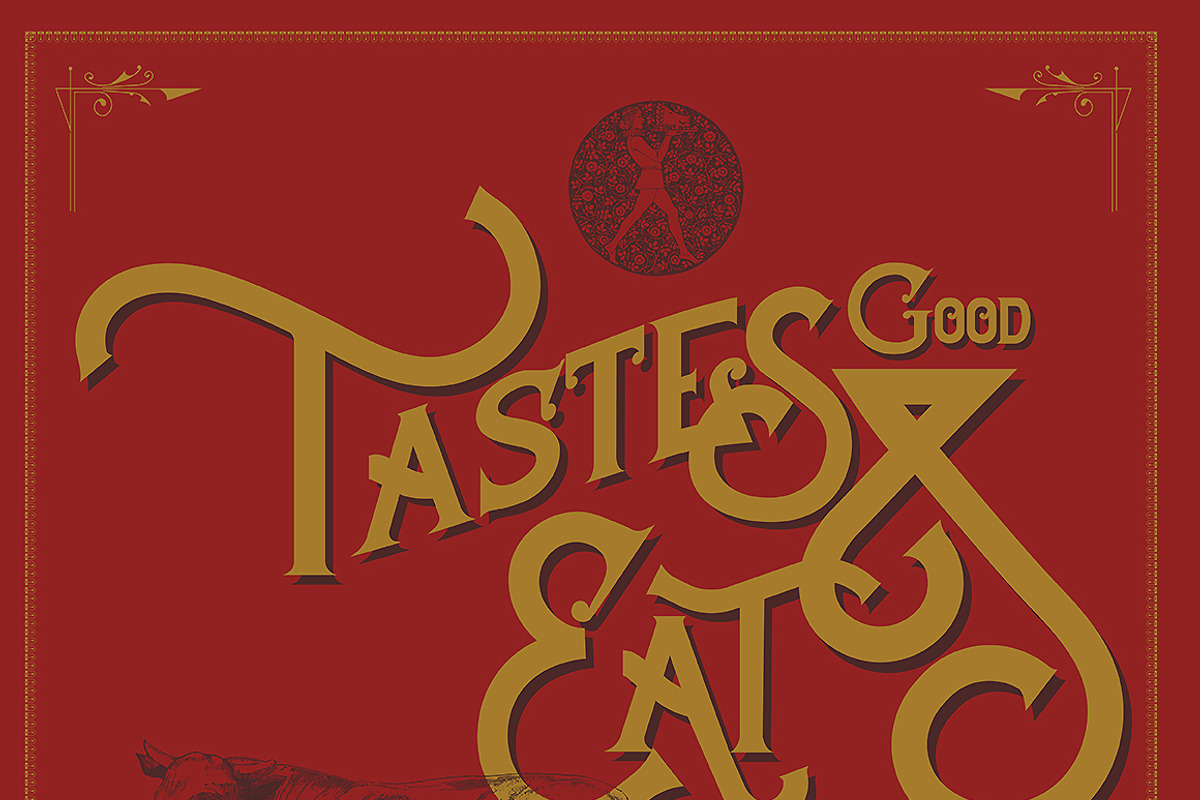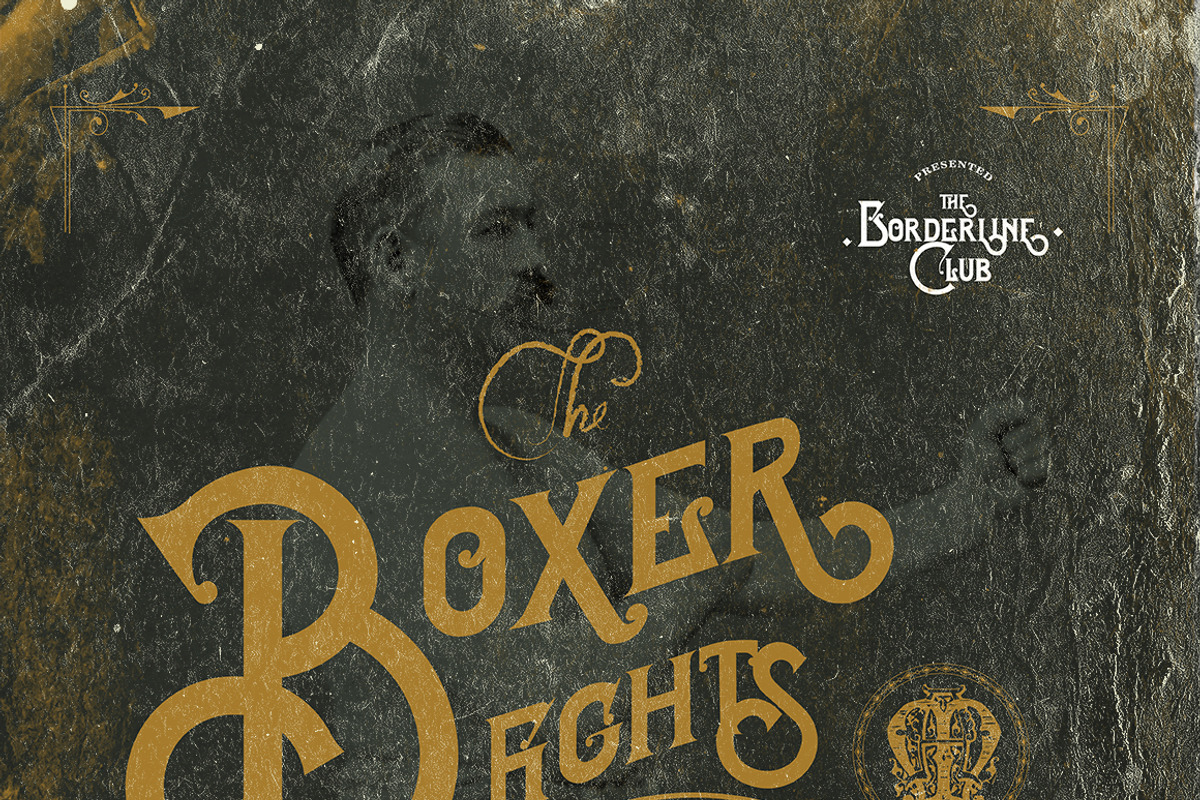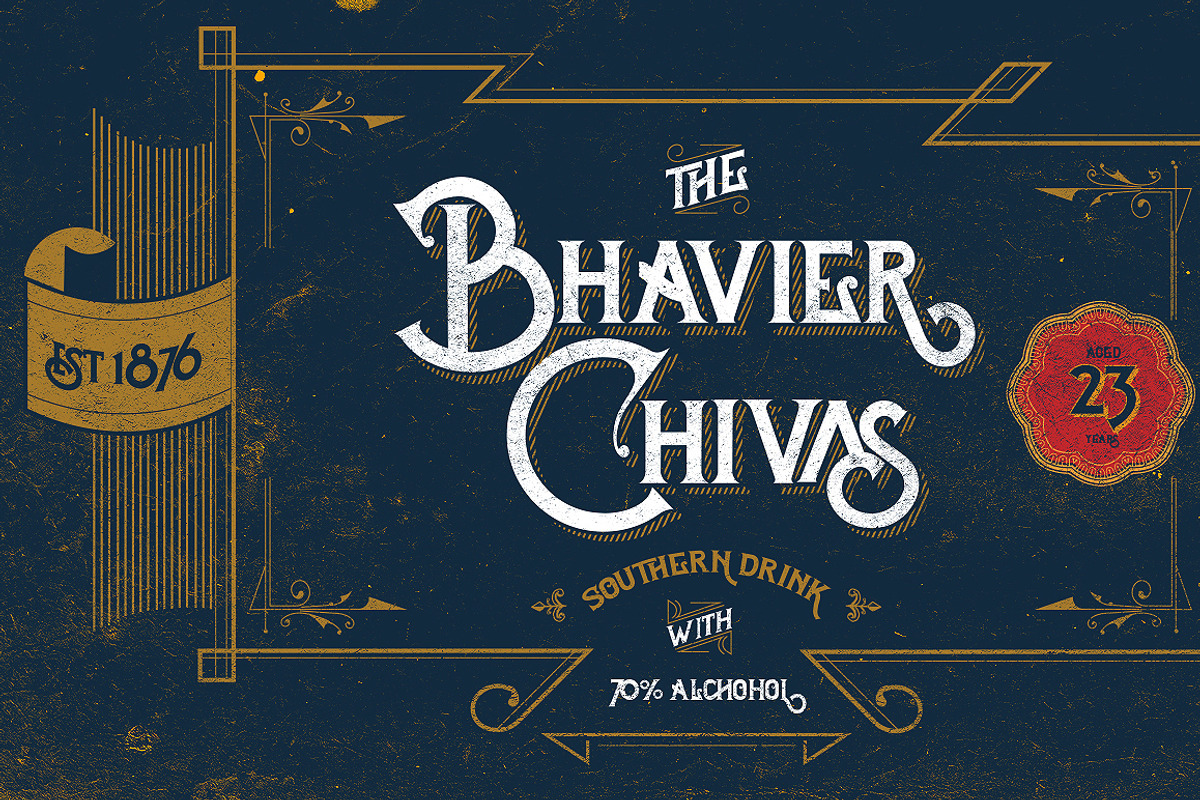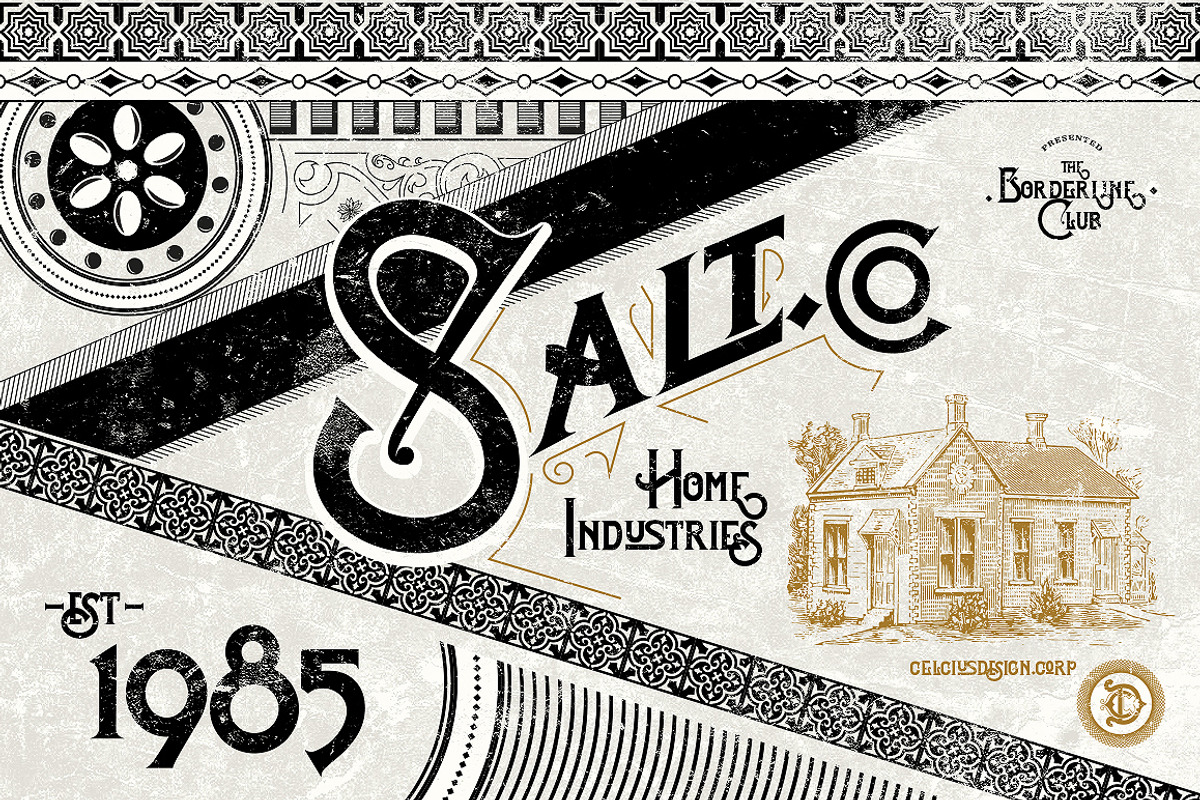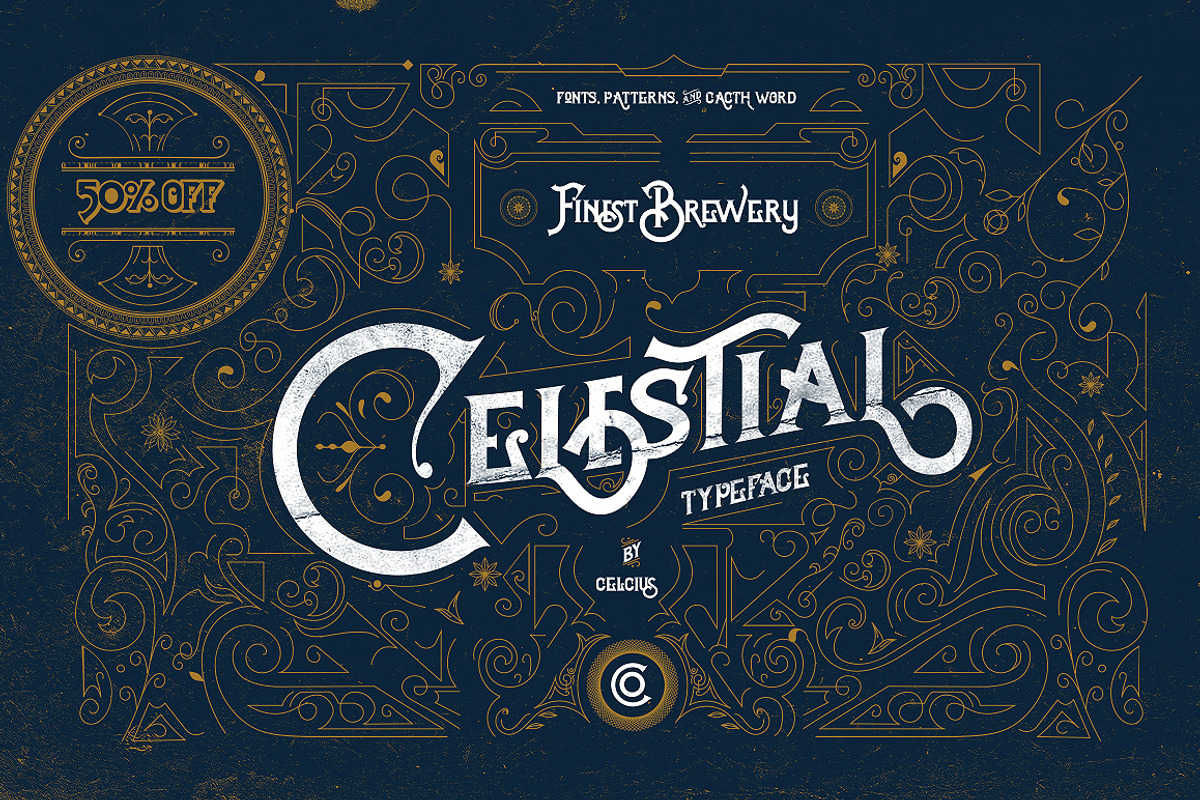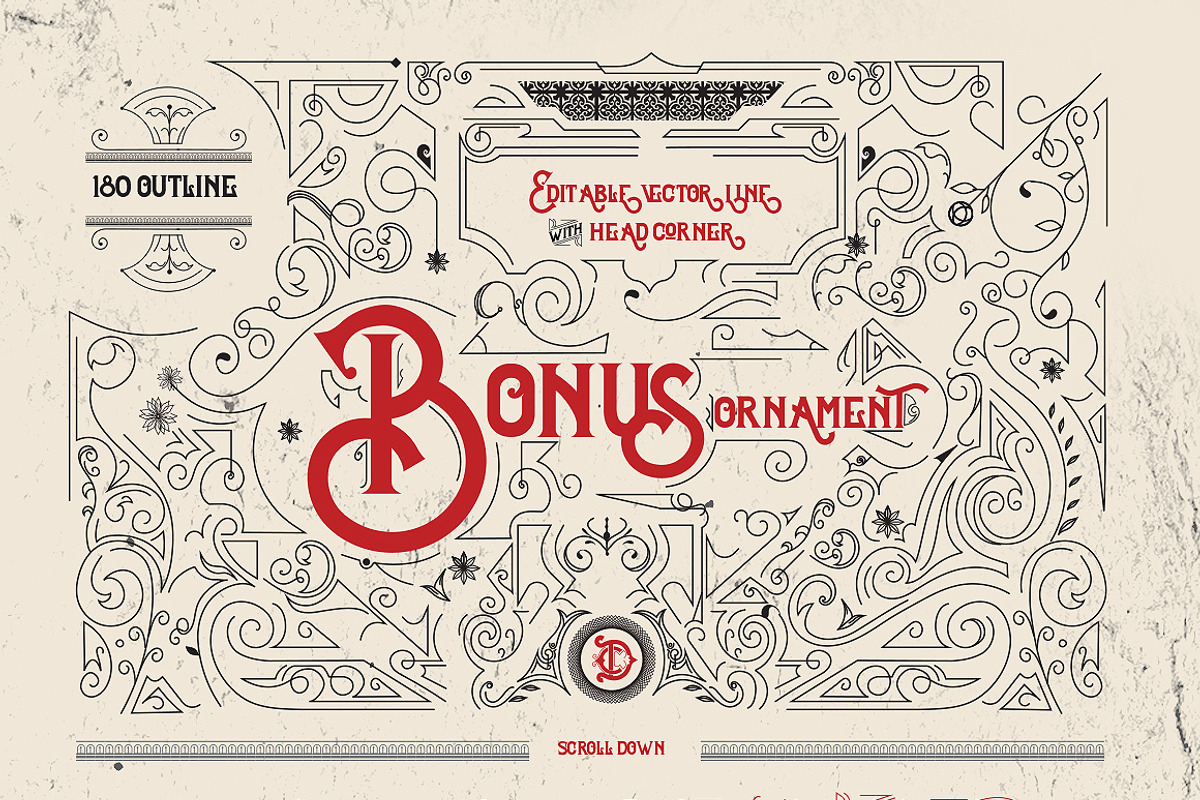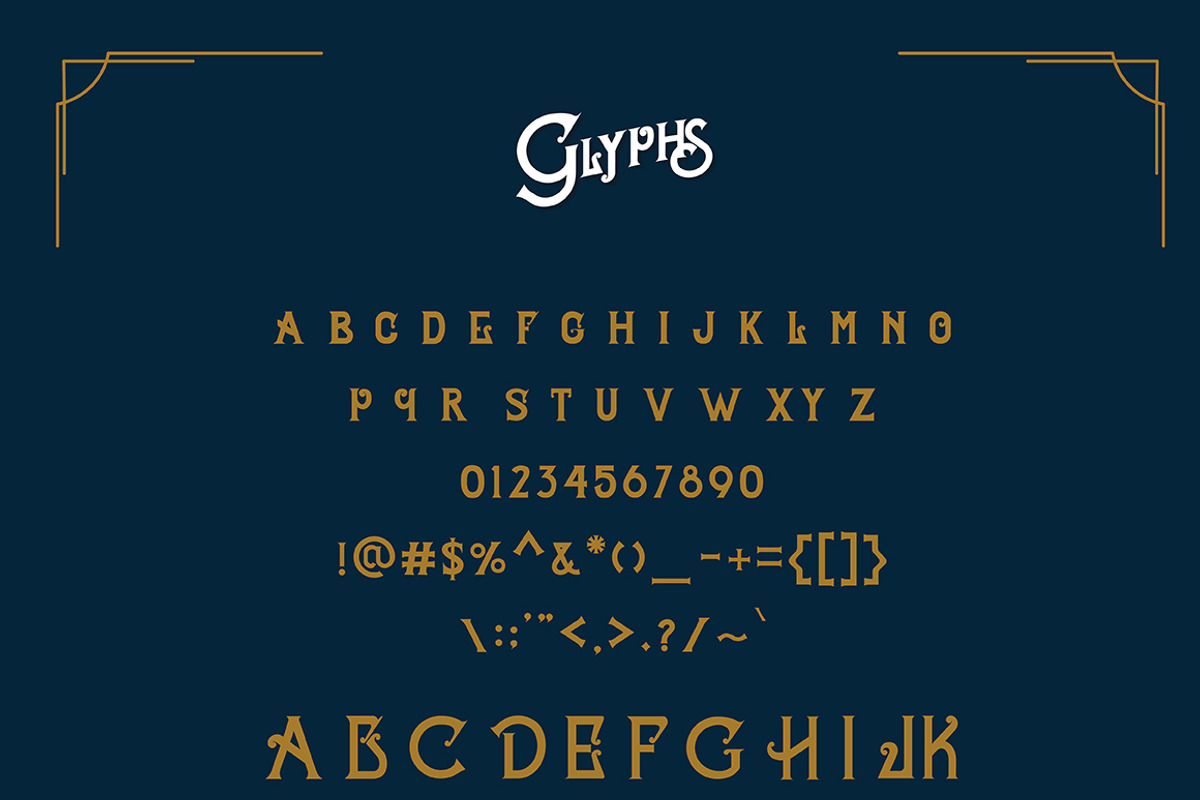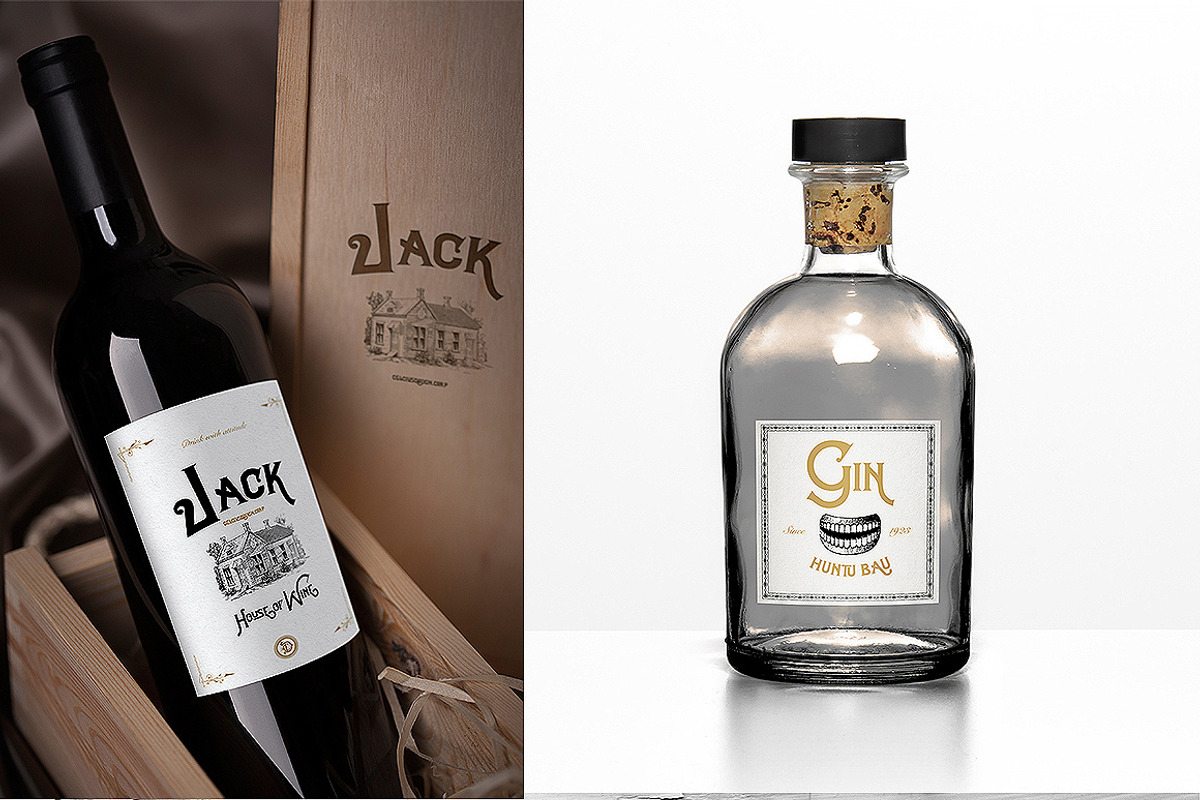
Celestial Fonts & Vintage Pattern
Celestial Typeface is handmade Victorian handlettering, which is combining modern and classic typography with some awesome features. Yes we back to early 1800s, bring classic touch on this decade.
Celestial Features
- Old Style Tabular
- Vintage Ornament
Open Type featuring
- Contextual Alternates
- ss01
- ss02
- ss03
- Old Style Tabular for numbering
There are more than 329 glyphs in the font including Stylistic sets, Ligatures, Contextual Alternates etc. OpenType features with Stylistic Alternates, Contextual Alternate in some characters that allows to make victorian look. this is suit for : wine packaging, labeling, logo, classic shop, coffee shop, movie title, etc
Absolutely OBSESSED with this font! It's everything I was looking for, and the Illustrator guides were very helpful for finding the bonus OTF goodies! I'm unsure if this was a trick of the eye or not, but the "blocky" capital E seems much too thick in comparison to the rest of the characters. and seemed to sit much higher on the glyph baseline than the others as well. The one that looks like a backwards 3 does not do that, though, so it's still covered! I'd love to see an update or something for that. Overall it's a beautiful font, and exactly what I was looking for! I'd give it like a 9.99/10!!